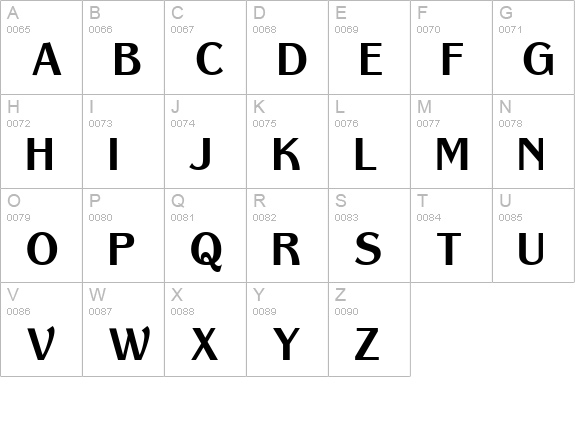
Panache Bold is a strong, high-contrast variant in the Panache typeface family \xE2\x80\x94 well suited to headlines, attention-grabbing titles, and strong calls-to-action.
Panache Bold font is a stunning display typeface that exudes confidence and sophistication. Its bold, distinct letterforms command attention and make a statement in any design project. With its strong vertical strokes and sharp edges, this font is perfect for headlines, logos, and branding materials. What sets Panache Bold font apart is not only its striking aesthetics but also its accessibility. It is freely available to download at FontsMarket.com, ensuring that designers and creatives of all backgrounds can add this exquisite font to their toolkit without any financial constraints. Whether you're designing a magazine layout, creating eye-catching posters, or crafting impactful social media graphics, Panache Bold font will effortlessly elevate your designs to new heights. Its versatility allows it to be used in a variety of contexts, from elegant and refined to bold and edgy. The attention to detail in Panache Bold font is unparalleled. Each letter is meticulously crafted, with careful consideration given to proportions, curves, and spacing. The result is a font that not only stands out but also maintains legibility at any size. Panache Bold font is a true testament to the power of typography in visual communication. Its bold presence demands attention while conveying a sense of professionalism and sophistication. Whether you're a seasoned designer or just starting out, this font is sure to inspire and enhance your creative endeavors. So why wait? Download Panache Bold font for free at FontsMarket.com and unleash your design potential today.